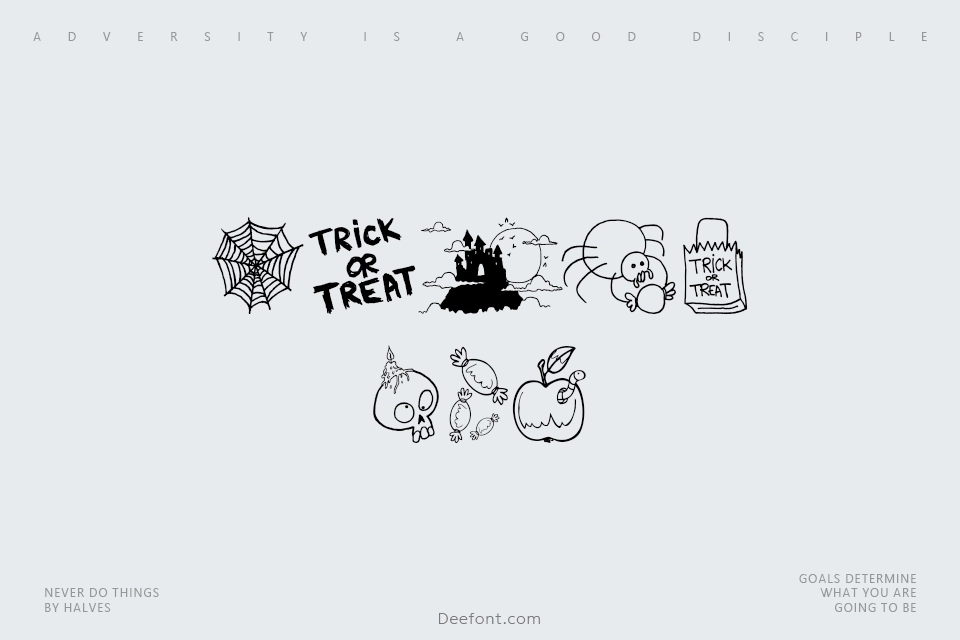
Halloween Bell Font
Halloween Bell is a decorative dingbats font featuring spooky and playful Halloween-themed icons including witches, pumpkins, ghosts, and festive elements. With whimsical and cartoonish characters rendered in bold outlines and intricate designs, this font brings a fun and eerie spirit to creative projects. Perfect for Halloween party invitations, seasonal decorations, themed graphics, and festive crafts that need a touch of holiday charm.